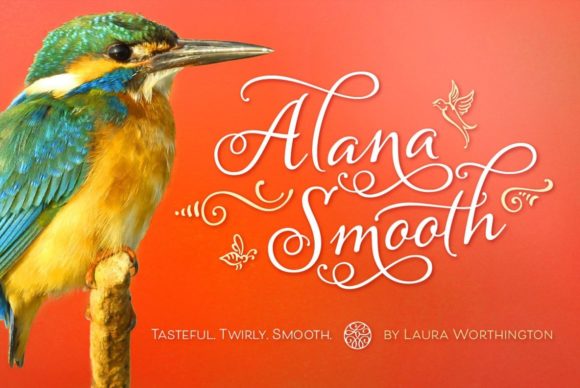
Introducing Alana Smooth Font - A Journey into the Realm of Refined Elegance
In a world of digital expression, your words hold immense power. They have the ability to evoke emotions, paint vivid pictures, and capture the essence of your thoughts. But to truly make your words shine, you need a font that resonates with your message and elevates it to new heights.
Look no further than Alana Smooth Font, a script font that dances across the digital canvas with casual elegance. Its inviting letterforms embrace you like a warm hug, enveloping your words in a gentle embrace.
Crafted with meticulous care by Laura Worthington, this font exudes sophistication and charm. Each character has been meticulously designed to flow seamlessly into the next, creating a harmonious rhythm that mimics the beauty of handwritten script.
With Alana Smooth Font, you can transform ordinary words into captivating works of art. Whether you're writing love letters, creating elegant menus, or crafting stunning invitations, this font will add a touch of magic to your creations.
Dive into the enchanting world of Alana Smooth Font and let your imagination soar. Allow your words to take on a life of their own as they dance across the screen, captivating your audience with their timeless grace. Embrace the art of script writing and unlock the hidden beauty within your words.